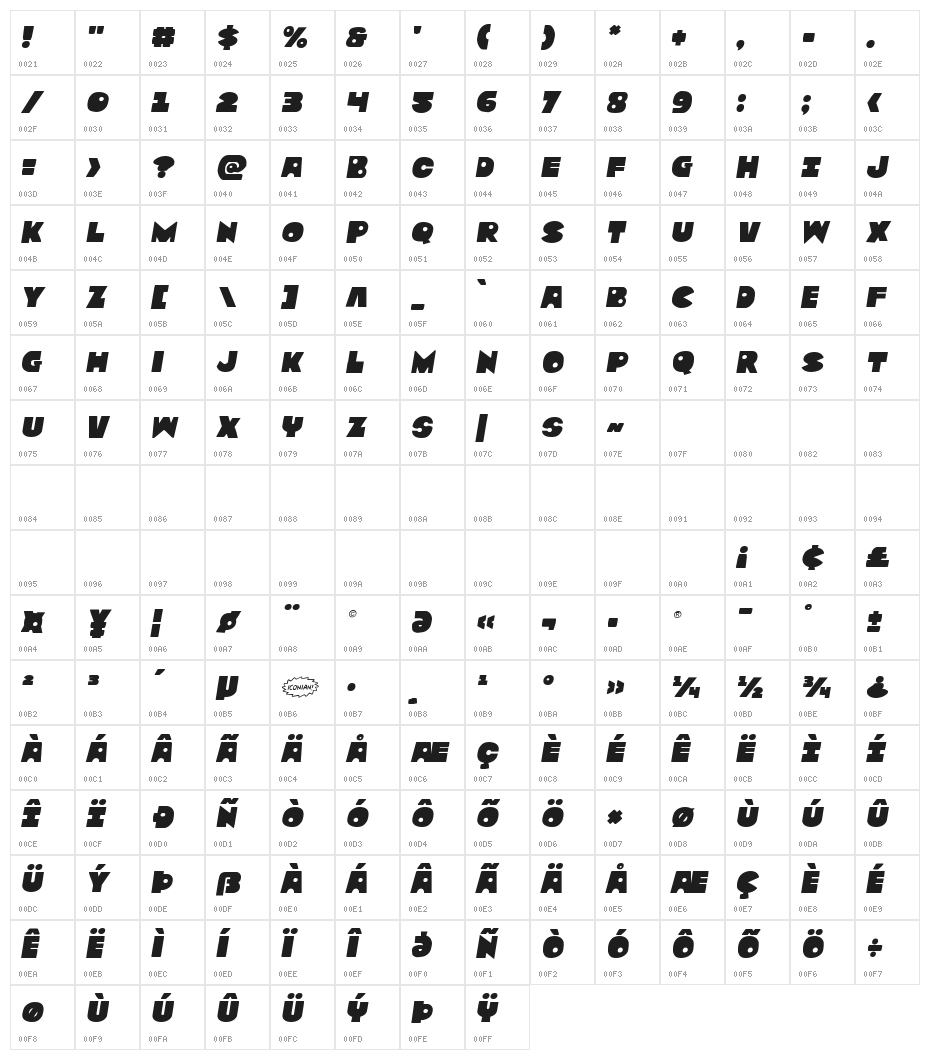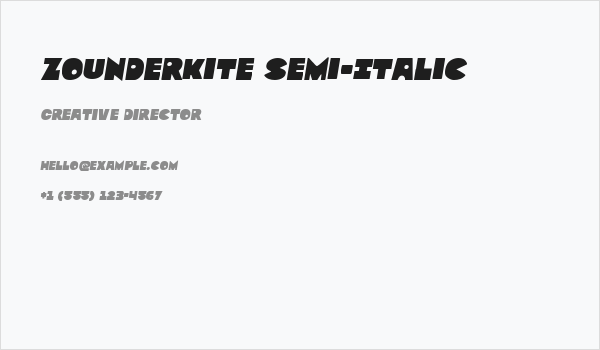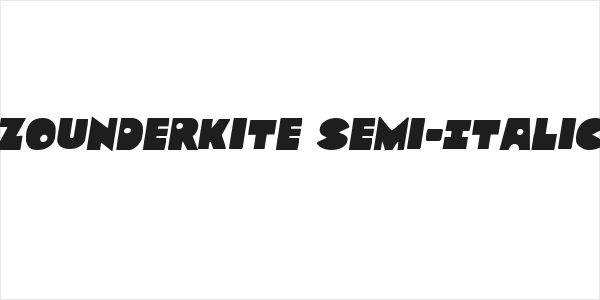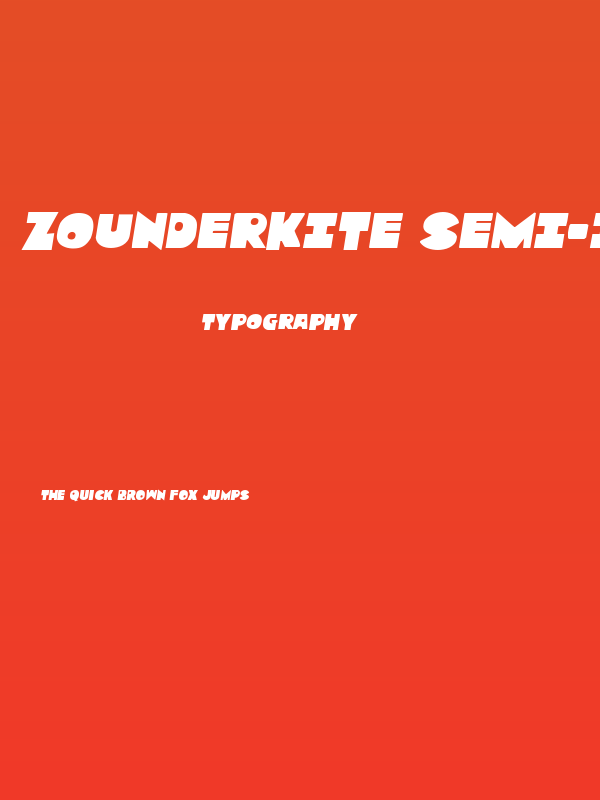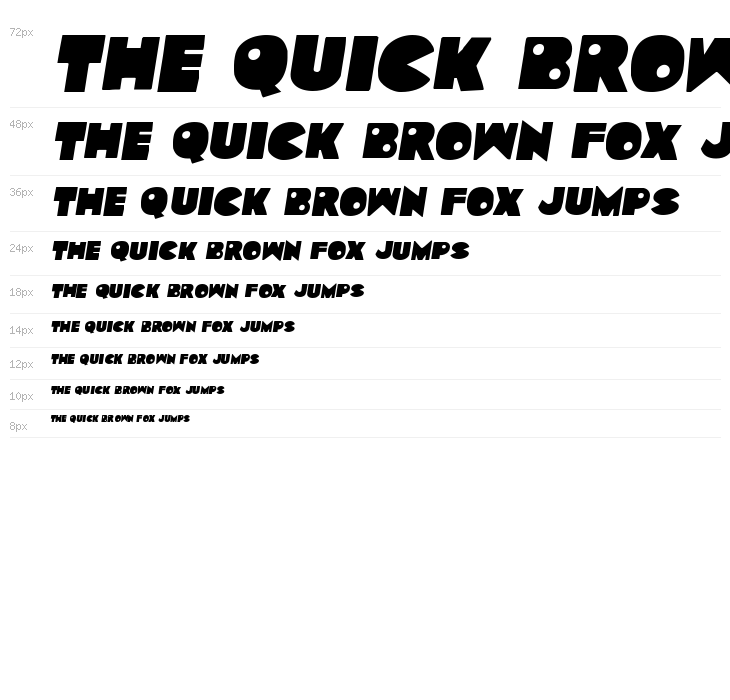
Zounderkite Semi-Italic Font
Zounderkite Semi-Italic Description
This font features bold, geometric shapes with a playful and dynamic appearance. The characters are designed with a strong emphasis on angular forms and sharp edges, creating a sense of movement and energy. The uppercase and lowercase letters maintain a consistent style, with wide, blocky forms that are slightly tilted, adding a semi-italic flair. The numbers and special characters follow the same design principles, ensuring uniformity across the typeface. This font is ideal for projects that require a bold and attention-grabbing aesthetic.
| Proposed Projects | Perfect for posters, branding, and headlines that need a striking and energetic look. |